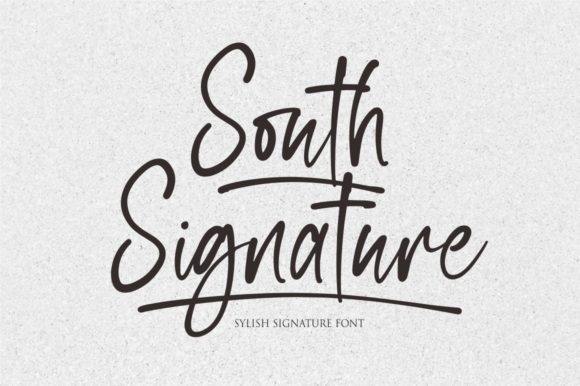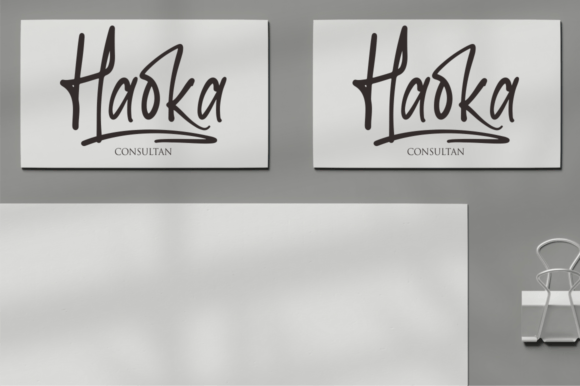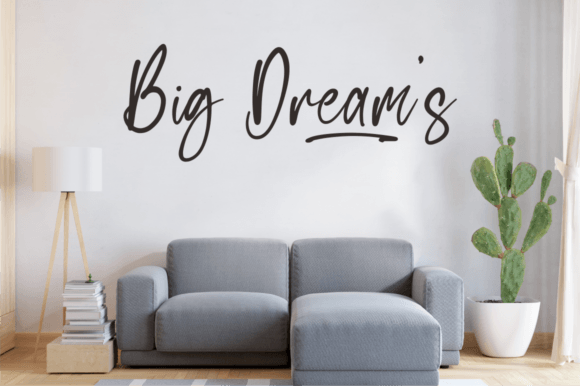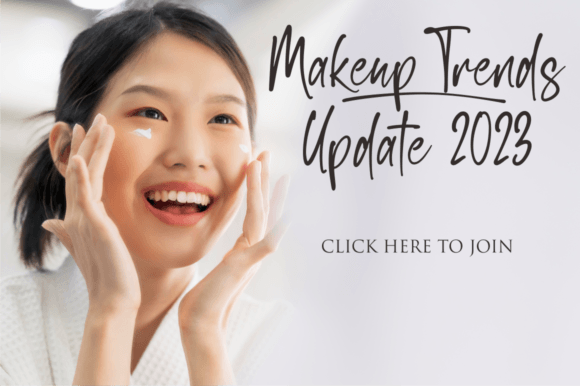
South Signature Font
About the South Signature Font
Elevate your designs with South Signature Font, a font that combines sophistication with readability. South Signature brings elegance and charm to your designs with the stunning handwritten font. Perfect for branding, social media graphics, and eye-catching headlines, this font adds a touch of beauty to any project. This font is PUA encoded which means you can access all glyphs and swashes with ease!
South Signature Font Usage Examples
South Signature Font Example